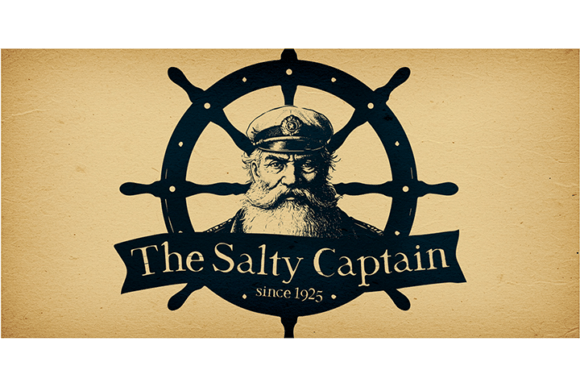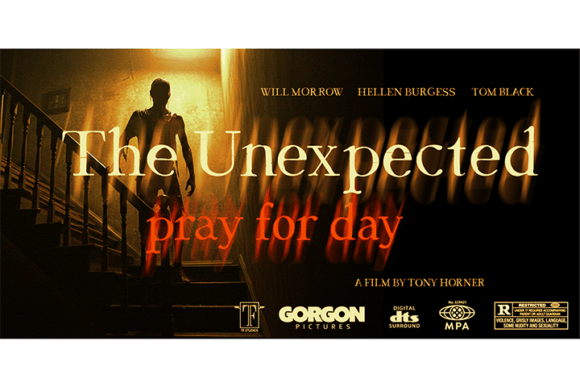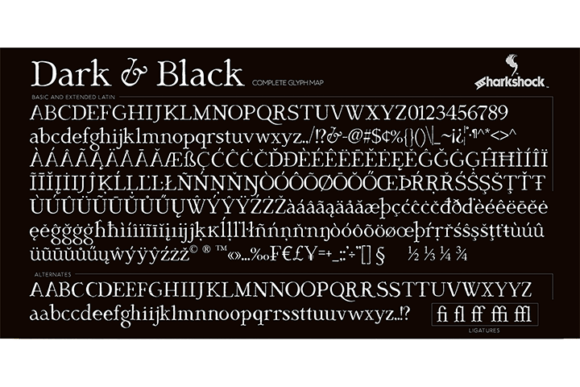
Introduction to Dark & Black Font
Have you ever found yourself in a creative flow, staring at a blank canvas, and suddenly a character or word pops into your mind, demanding to be brought to life? This was exactly the moment when the Dark & Black Font was born – a titling serif that embodies the essence of classic Roman letters with a hint of macabre charm.
At its core, the Dark & Black Font is a design resource that offers a unique combination of high quality and versatility. With its transparent background and subtle levels of distress, it’s the perfect addition to any creative project that requires an air of mystery and sophistication. And the best part? It’s available for a free download, making it an accessible design resource for designers of all levels.
Whether you’re working on a book cover, horror movie poster, or Halloween decorations, the Dark & Black Font is sure to add an extra layer of depth and intrigue to your design. In this article, we’ll delve into the world of this fascinating font and explore its many uses and benefits.
Key Features of Dark & Black Font
- High-quality vector design with a transparent background, ideal for creative projects that require a sleek and modern look.
- Unique characteristics include bold, modern lines and a striking contrast between light and dark elements, making it a standout design resource.
- Perfect for use in logos, branding materials, and other creative projects where a high-quality, modern font is required.
Honest Review: Dark & Black Font
I recently stumbled upon the Dark & Black Font and was eager to give it a try in my creative project. Overall, I’m impressed with the high quality of this font, and I’ll share my thoughts on what works well and what doesn’t.
Here are the strengths of the Dark & Black Font: ✨ It’s easy to use and download, even for those who are new to design resources. The font’s transparent background makes it versatile for various design applications. The font’s sleek and modern design is perfect for creating a sophisticated look.
However, I did encounter a few limitations: ⚠️ The font may not be suitable for projects that require a lot of bold or italic text, as the design can become somewhat inconsistent. Additionally, some users may find the font too minimalist for their taste.
Overall, I’m quite satisfied with the Dark & Black Font. It’s a great addition to my design library, and I appreciate the free download option. I’d definitely recommend it to designers who are looking for a high-quality, modern font for their creative projects.
- Font style: Modern, Minimalist
How to Use Dark & Black Font
Experiment with different font sizes and styles to create a unique look. Use the Dark & Black Font in combination with other design elements to add depth and visual interest to your design.
The Dark & Black Font is perfect for creating a sleek and modern look in your creative project. Use it in logos, business cards, and marketing materials to add a touch of sophistication. This high-quality font is also great for creating a clean and professional look in presentations and documents.